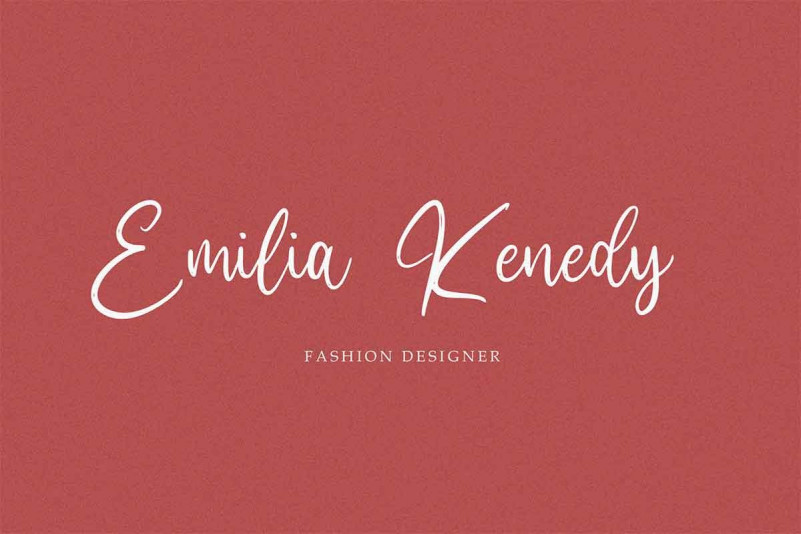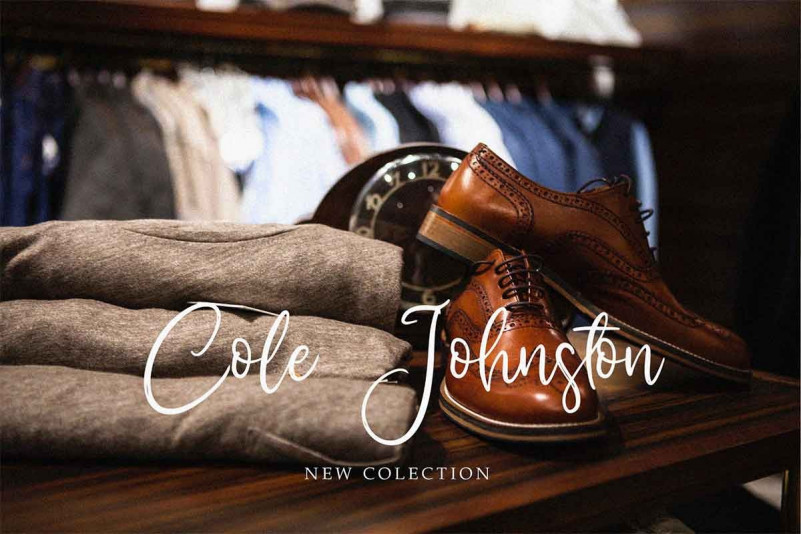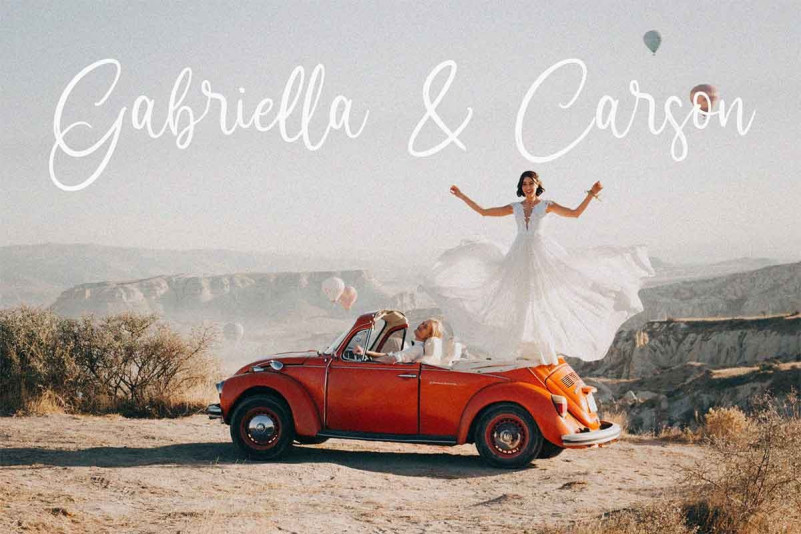
Love Prilly Calligraphy Font
Love Prilly is a refined, all round, and cursive handwritten font. It has beautiful and well-balanced characters and as a result, it matches a wide pool of designs.